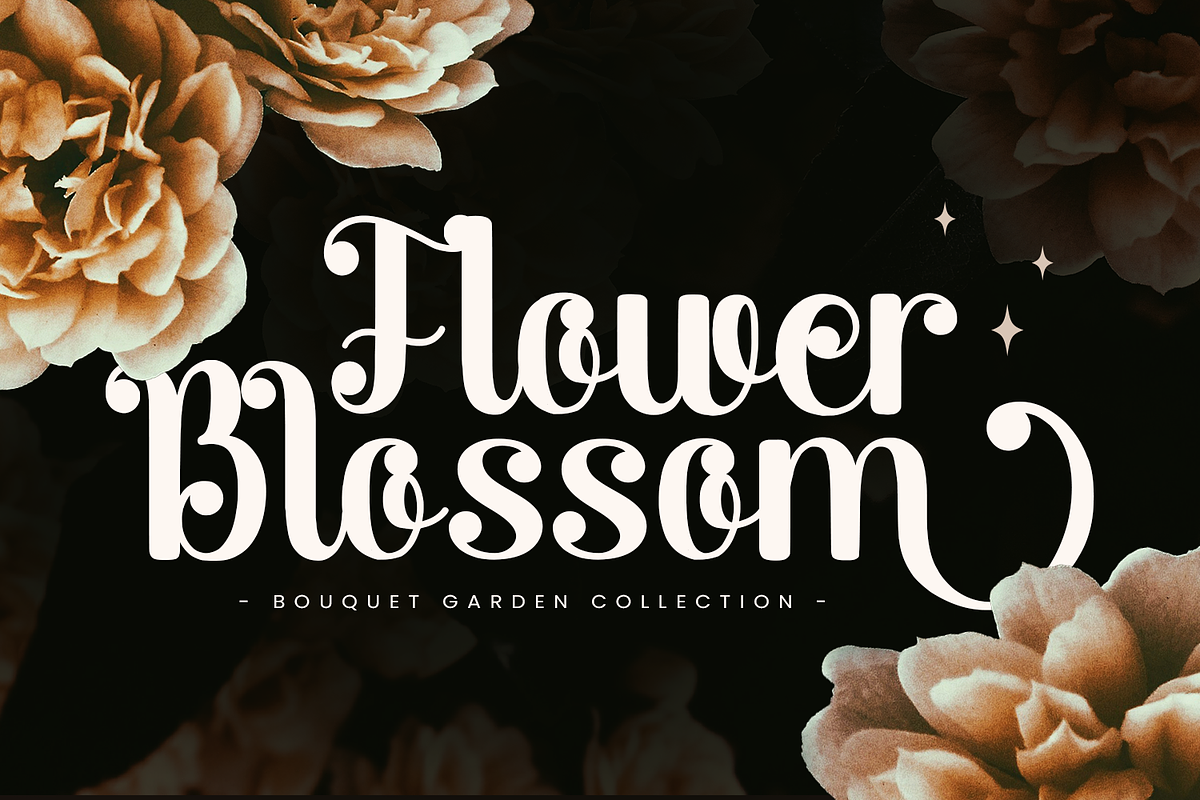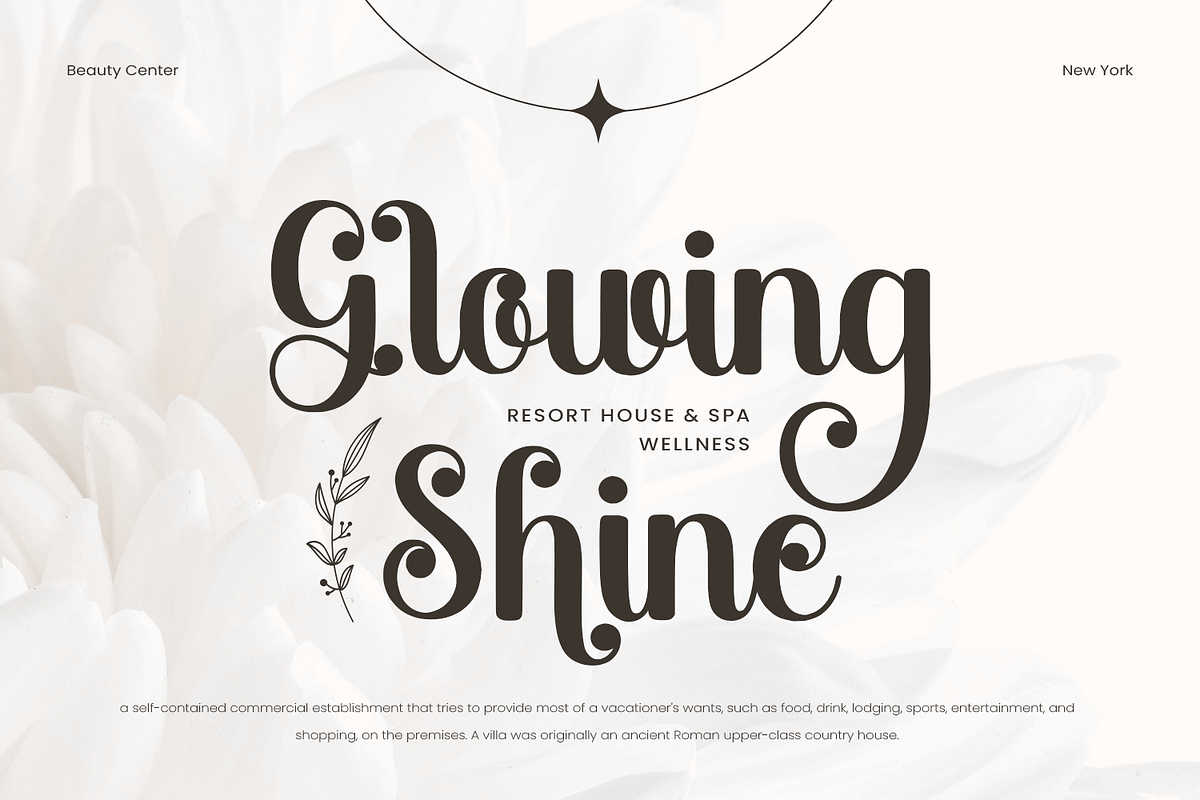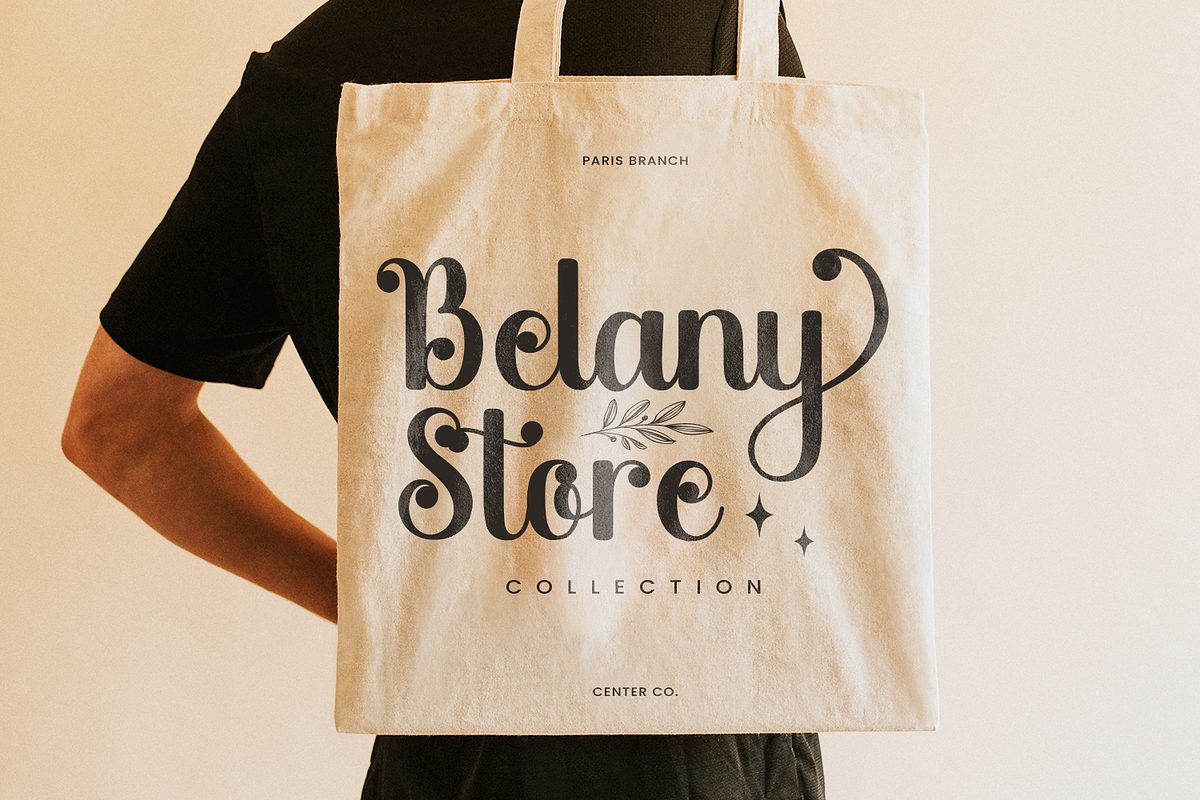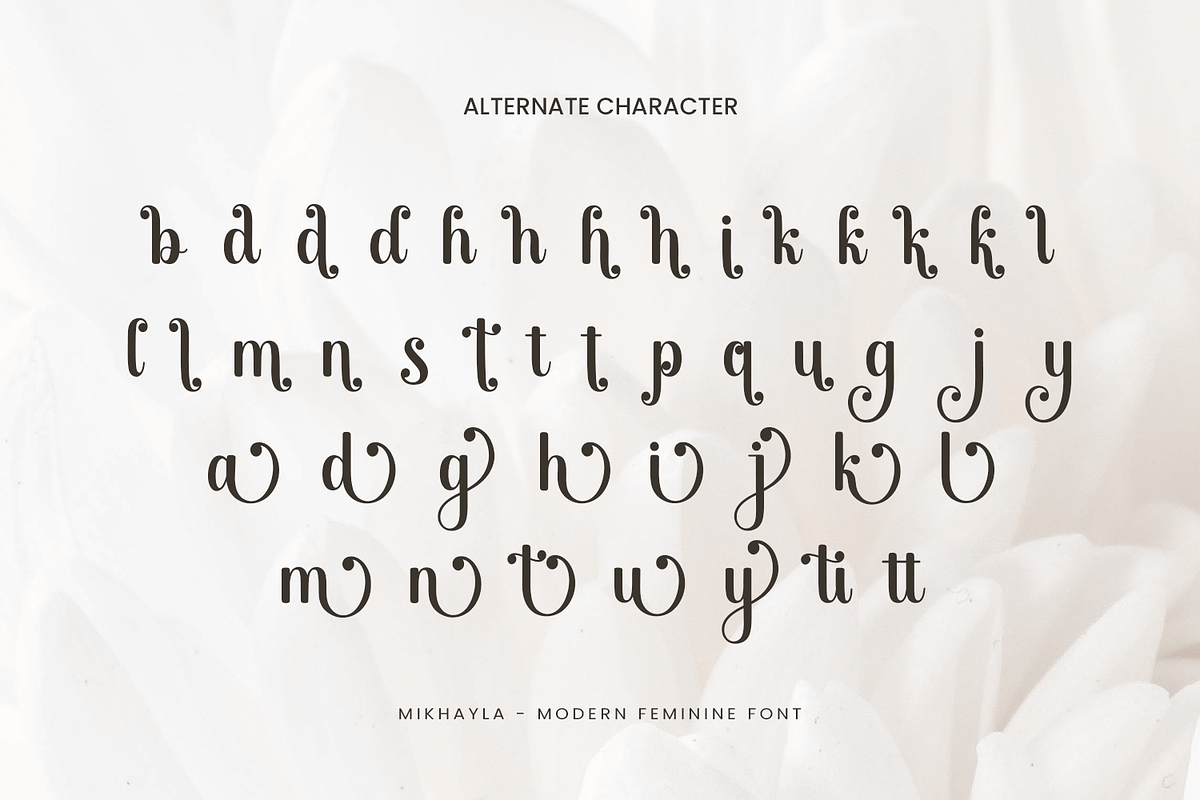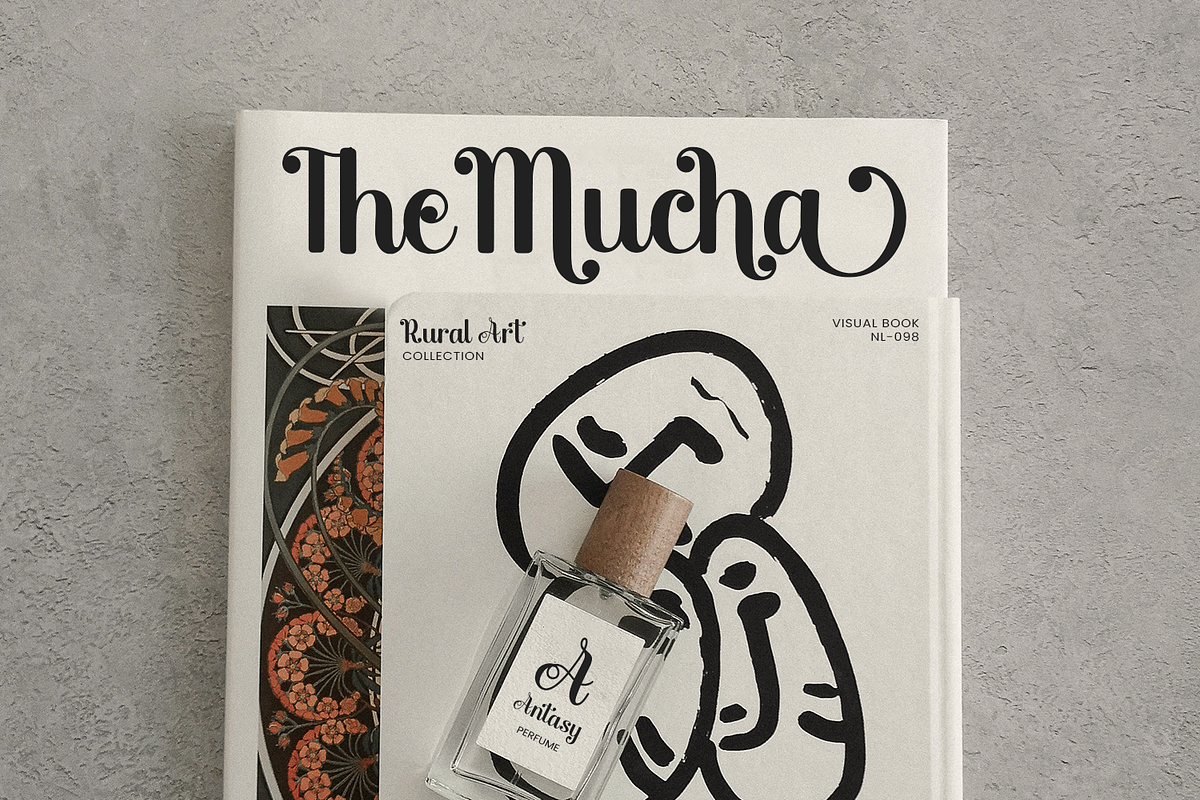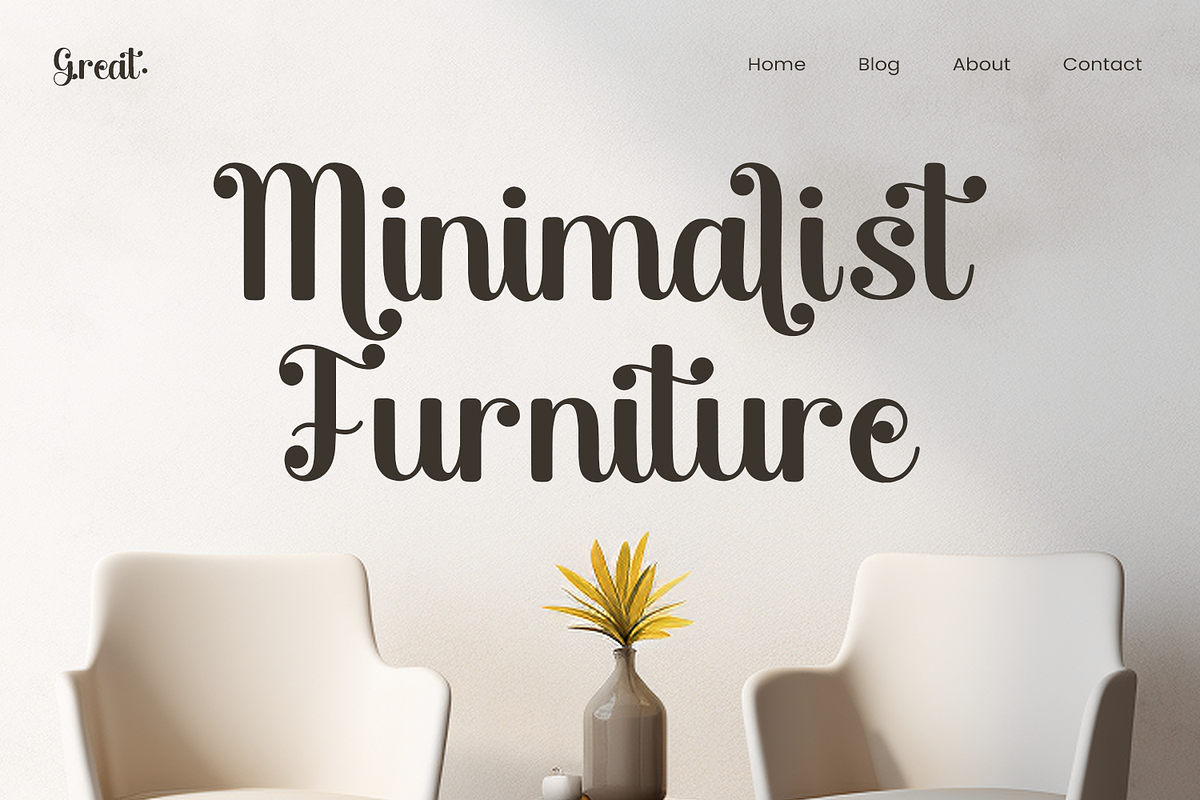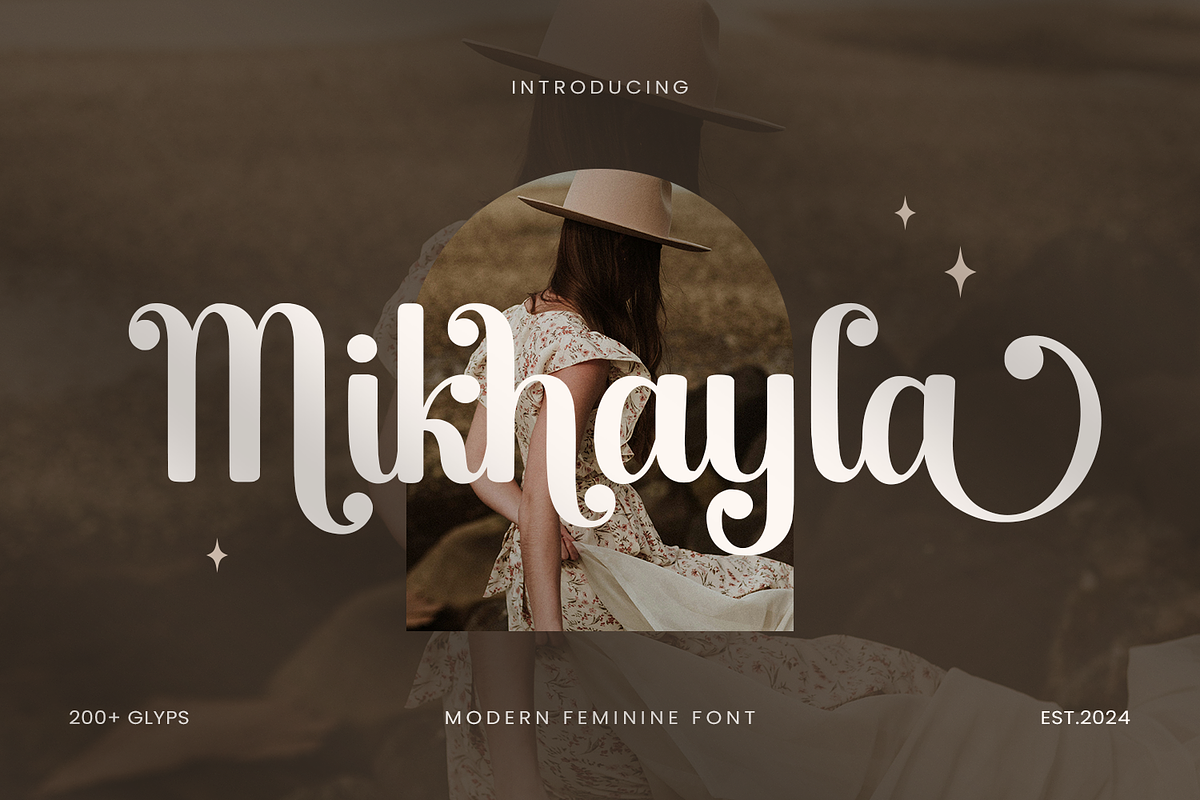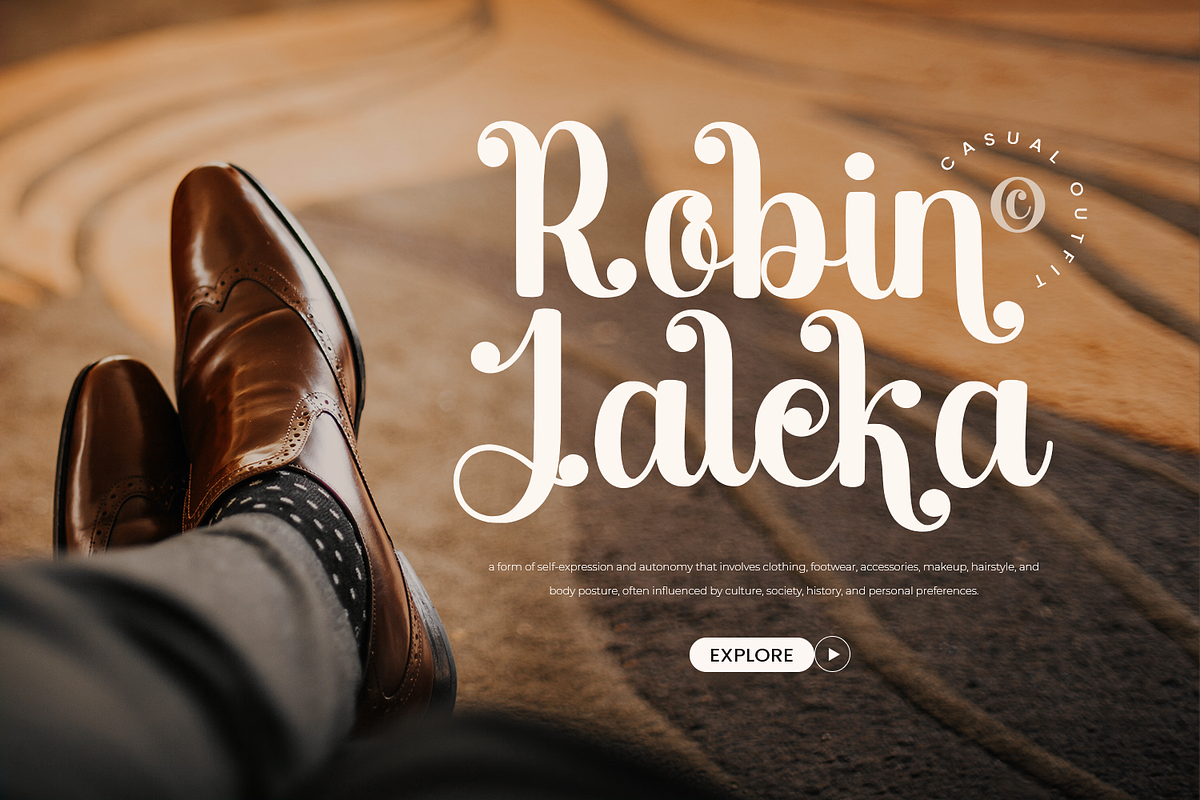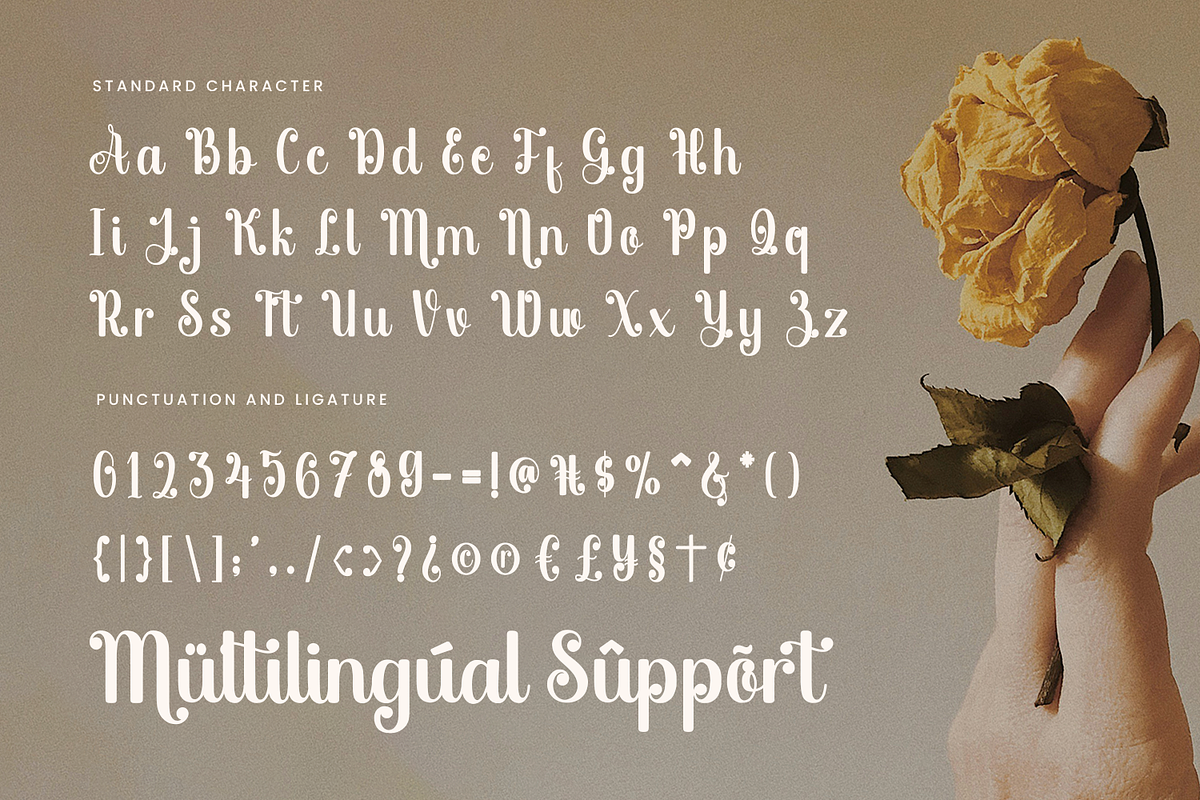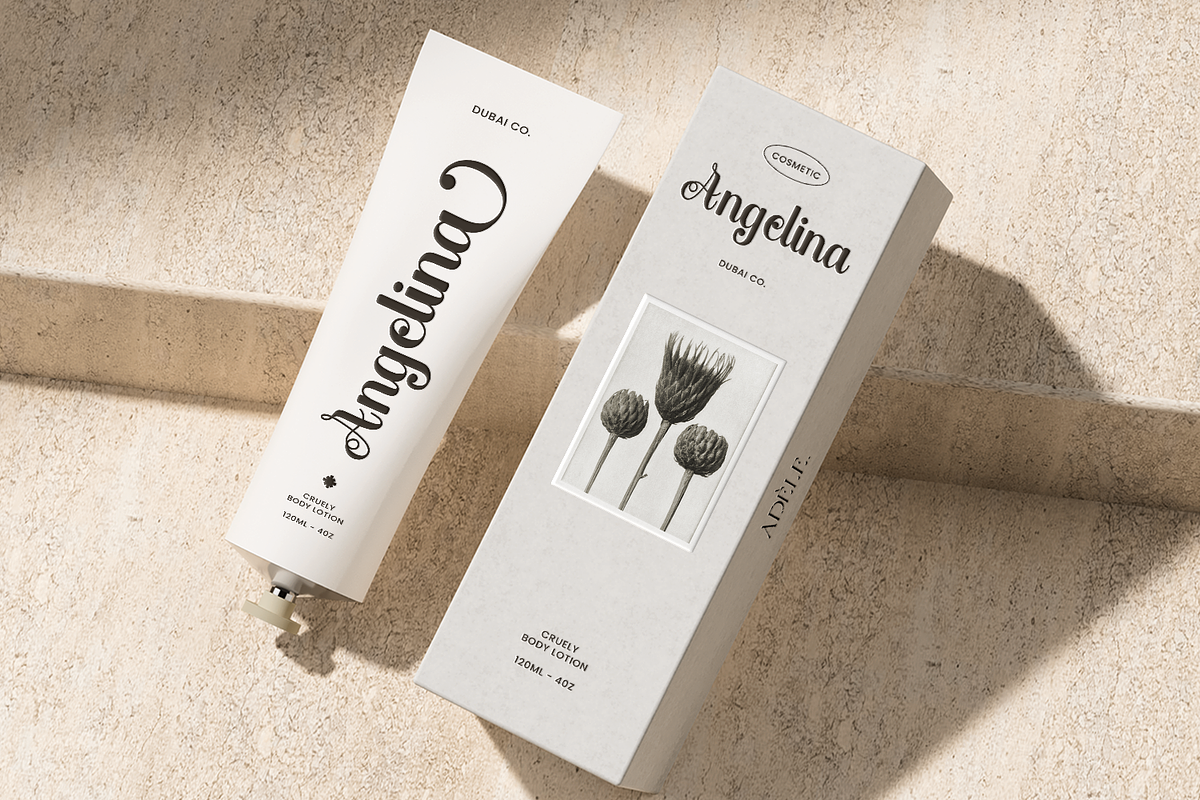
Mikhayla
Introducing Mikhayla, a stunning script handwritten font that beautifully captures the essence of elegance and charm. Perfectly suited for a variety of themes, including weddings, invitations, birthdays, Easter, and more, this font exudes a whimsical feel that enhances any project. Each character is thoughtfully designed with beginning and ending wash tails, adding a touch of flow and grace to your lettering.
Whether you’re crafting the perfect wedding invitation or designing charming birthday cards, Mikhayla elevates your work with its unique and playful style. The fluidity of the script makes it ideal for spring and summer themes, while its versatile nature allows it to shine in autumn and holiday projects, such as Thanksgiving and Christmas. Let your creativity run wild as you incorporate this delightful font into your designs.
Mikhayla is not just a font; it’s a statement. Its enchanting curves and elegant details create a visually captivating experience, ensuring your messages resonate with warmth and sincerity. Use it for Cricut crafts, embroidery projects, and other creative endeavors to make your designs stand out. The font’s PUA encoding ensures easy access to alternative characters, giving you the freedom to explore various design possibilities.
Don’t miss out on the opportunity to bring a touch of sophistication and joy to your creations. With Mikhayla, your designs will leave a lasting impression, making every occasion unforgettable. Embrace the beauty of handwritten elegance and let Mikhayla be the perfect addition to your font collection today!